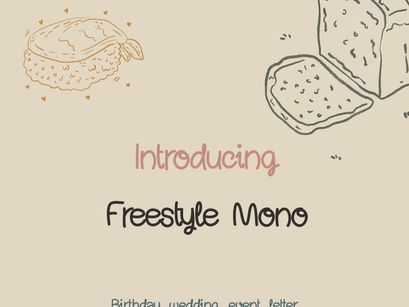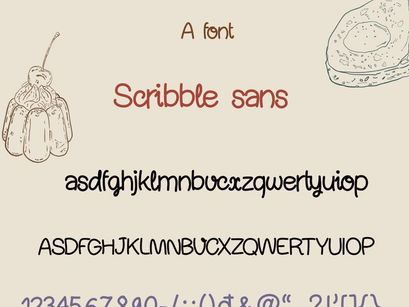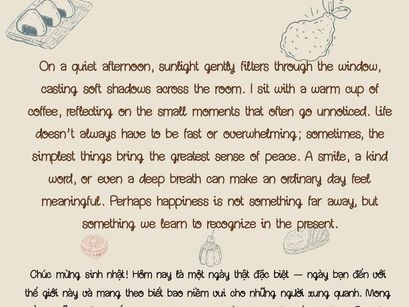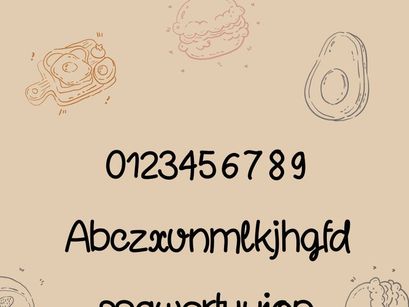
Freestyle Mono – Hand Drawn Sketch Font
Scribble Sans is a bold, hand-drawn sketch font that captures the raw energy of quick pencil strokes and creative drafts. Inspired by rough sketches and spontaneous linework, this typeface brings a natural, imperfect charm that makes your designs feel more human and expressive.
Perfect for branding, posters, social media graphics, packaging, and creative projects that need a unique handcrafted touch. Scribble Sans stands out with its textured strokes and dynamic character, making it ideal for eye-catching headlines and artistic compositions.
Features:
– Uppercase & lowercase letters
– Numbers & punctuation
– English, Vietnamese support
– Unique hand-drawn style
Whether you're creating edgy street-style visuals or modern artistic layouts, Scribble Sans adds personality and authenticity to every project.